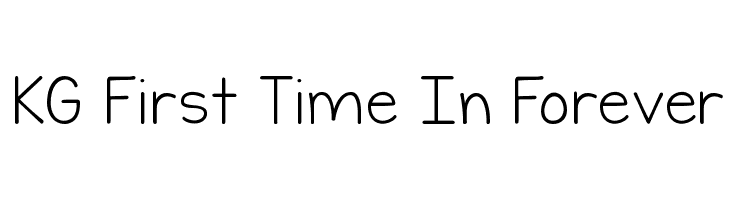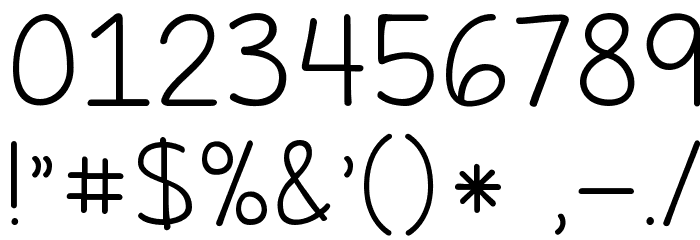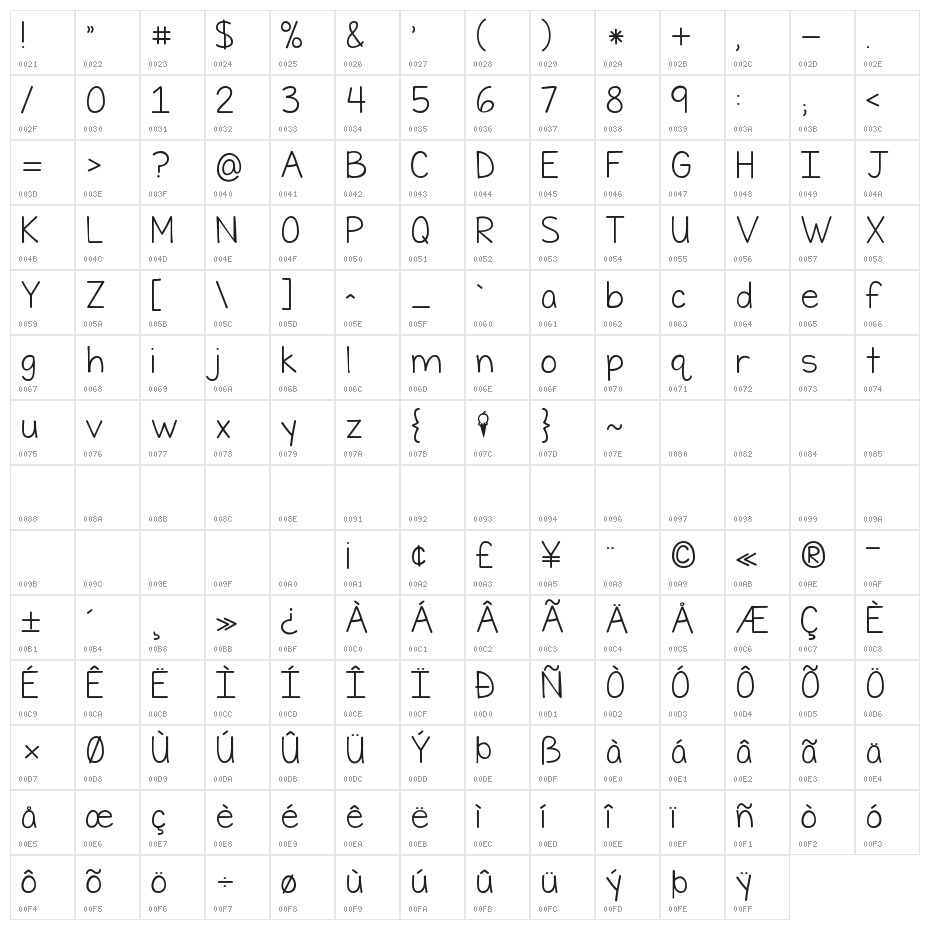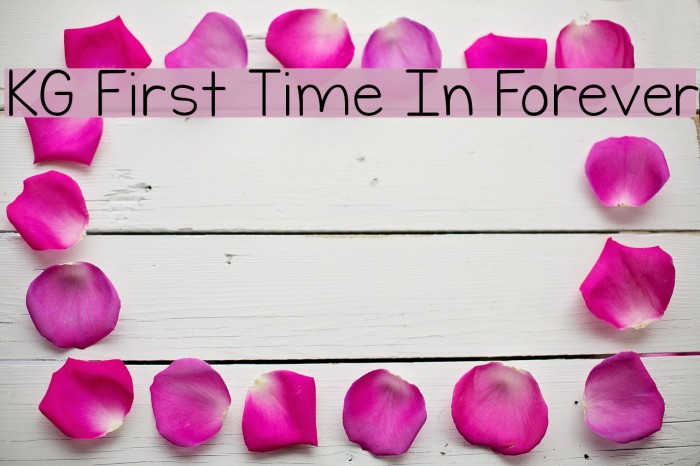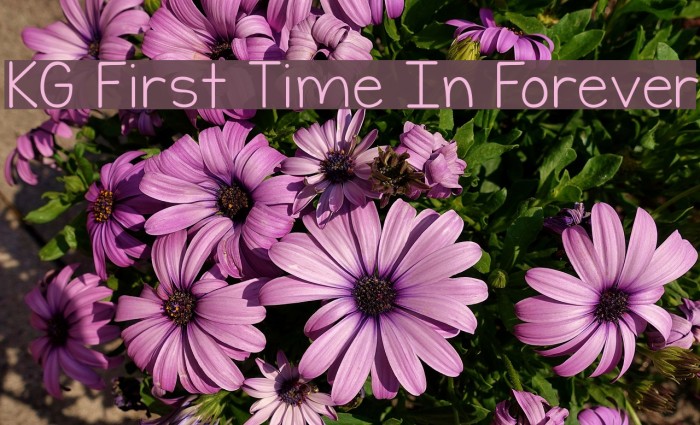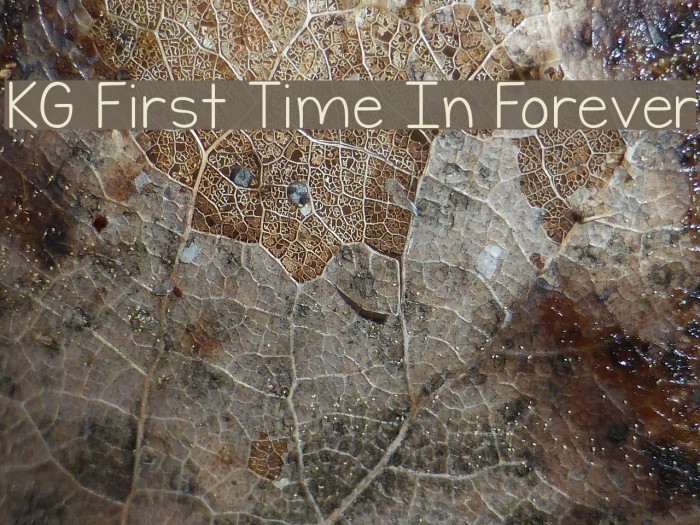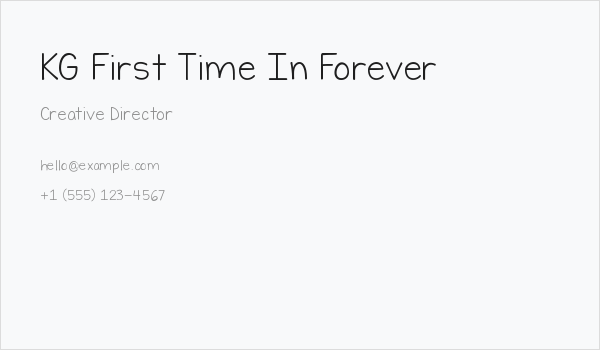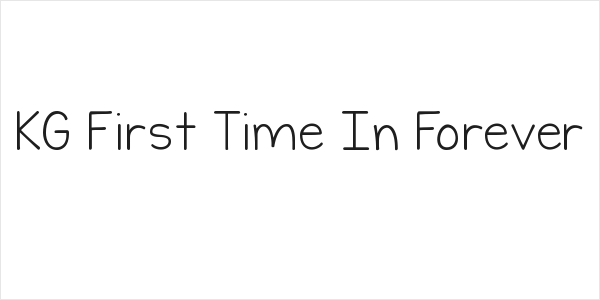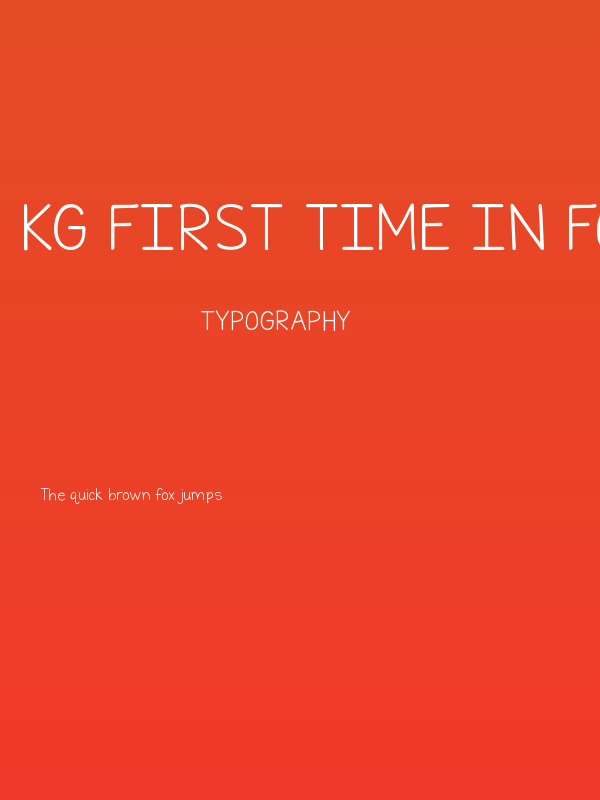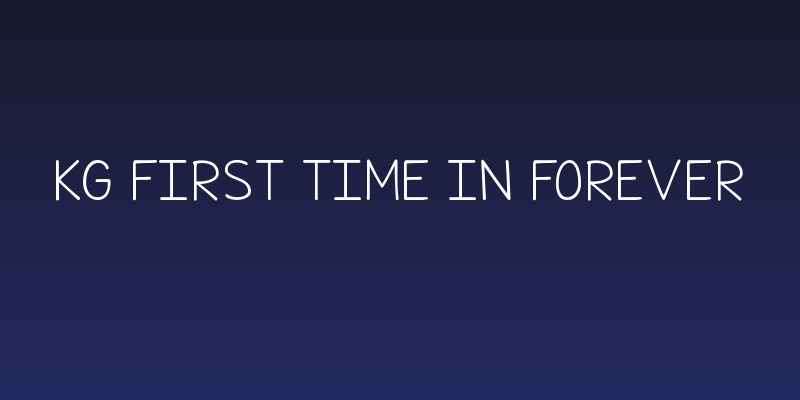
KG First Time In Forever Font
KG First Time In Forever Description
This playful and whimsical font features rounded, friendly characters that evoke a sense of fun and creativity. The letters are evenly spaced with a consistent stroke width, giving it a clean and approachable appearance. The lowercase letters have a gentle curve, while the uppercase letters maintain a straightforward, yet charming style. The numerals are clear and easy to read, making them suitable for various applications. Special characters are well-integrated, adding to the font's versatility. Overall, this font is perfect for projects that require a lighthearted and inviting touch.
| Use Case | Headlines, Logos, Educational materials |
| Proposed Projects | Ideal for children's books, educational materials, playful branding, and creative projects. |